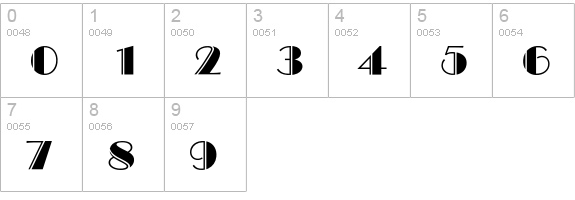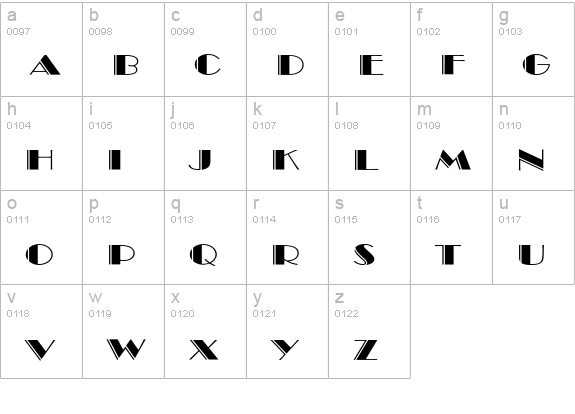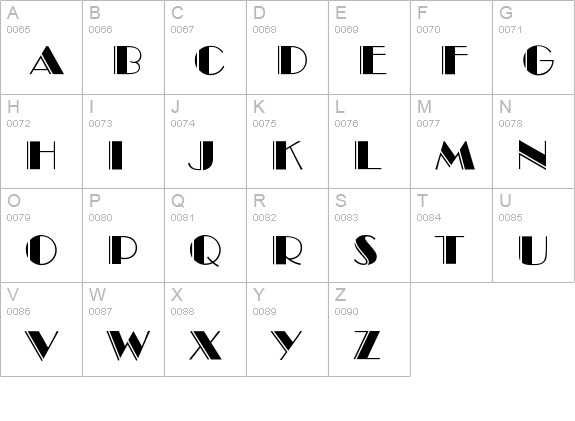
BroadwayDeko Font Details
BroadwayDeko font is a stunning display typeface that exudes elegance and sophistication. Its bold, theatrical style adds a touch of glamour to any design project, making it perfect for headlines, posters, and branding materials. With its intricate details and art deco-inspired letterforms, BroadwayDeko font captures the essence of the golden age of Broadway. The best part? BroadwayDeko font is completely free to download at FontsMarket.com. This means you can easily add a touch of Broadway magic to your designs without breaking the bank. Whether you're working on a vintage-inspired project or simply looking to make a bold statement, BroadwayDeko font is sure to impress with its timeless charm and versatility. Download it today and let your creativity shine on stage!